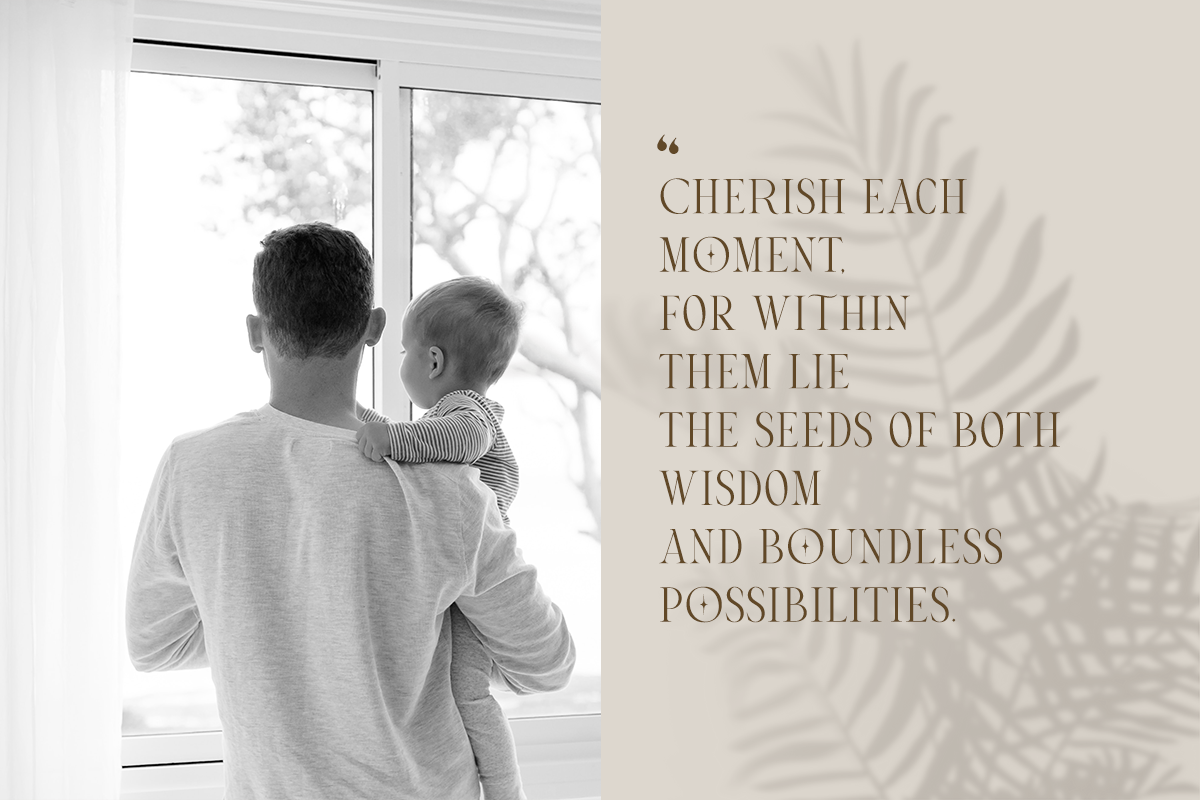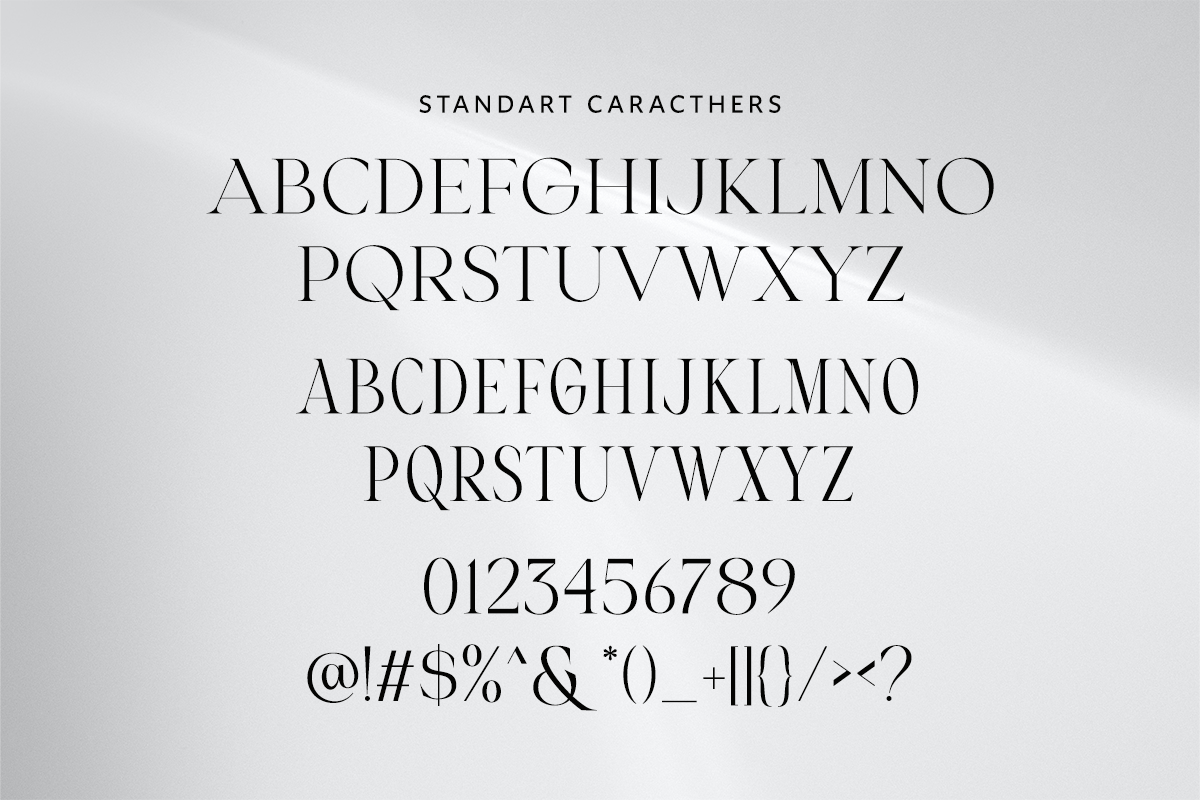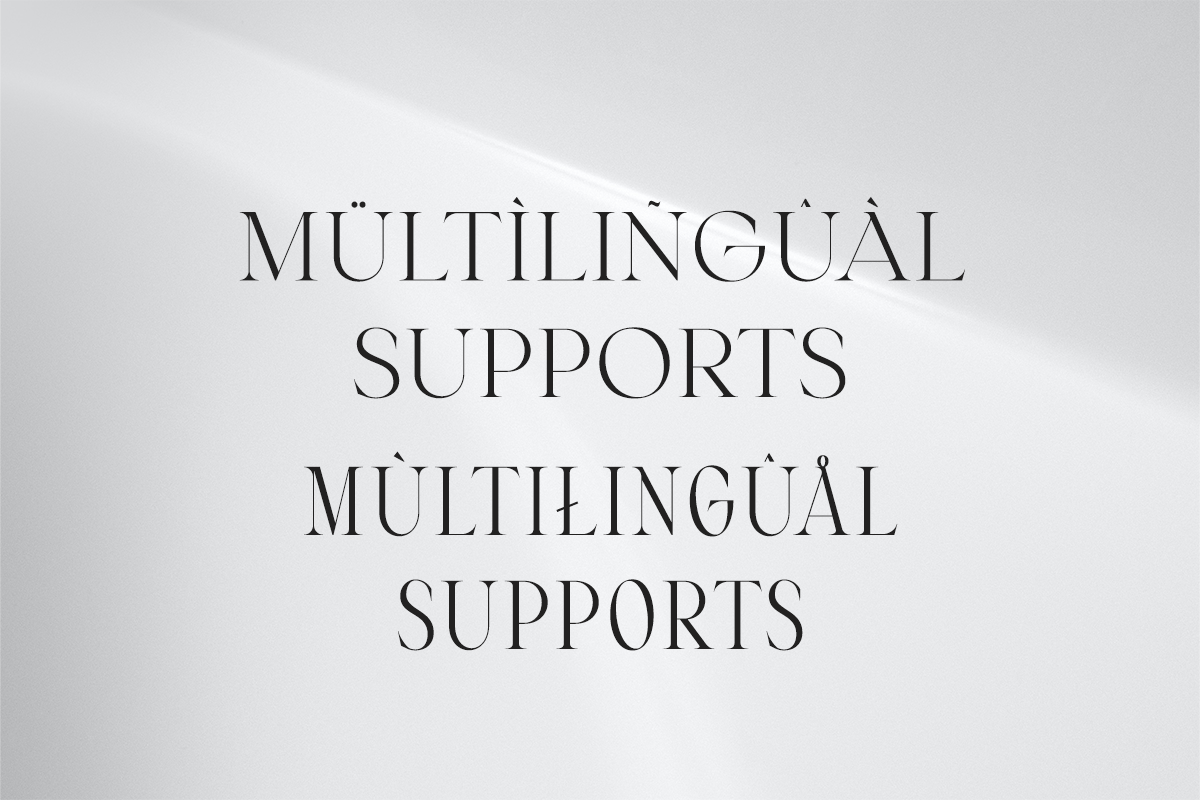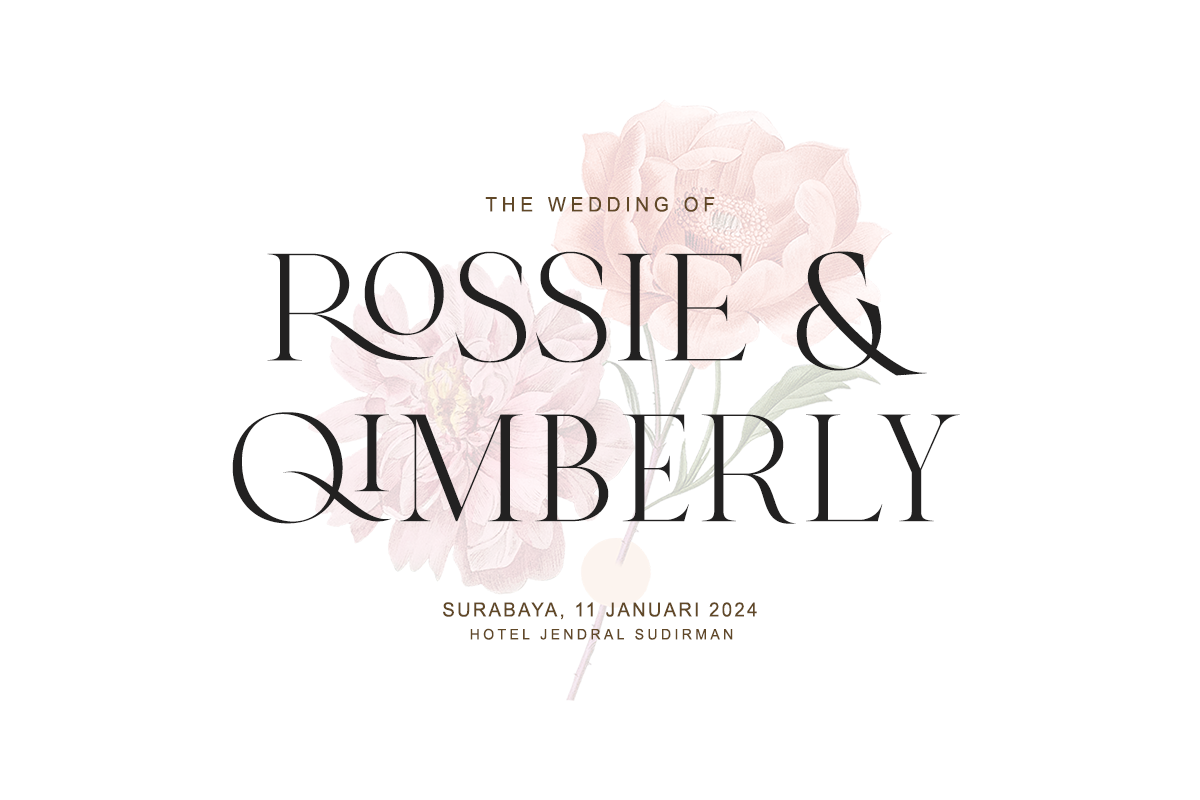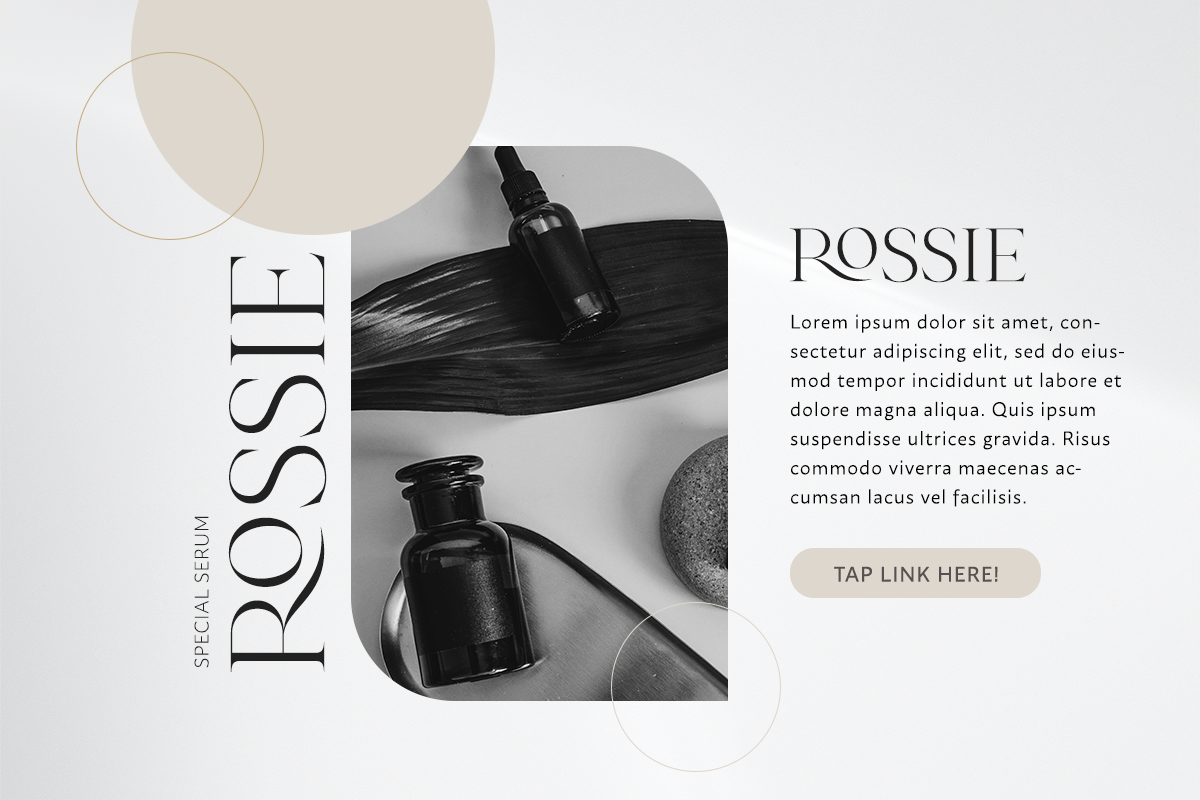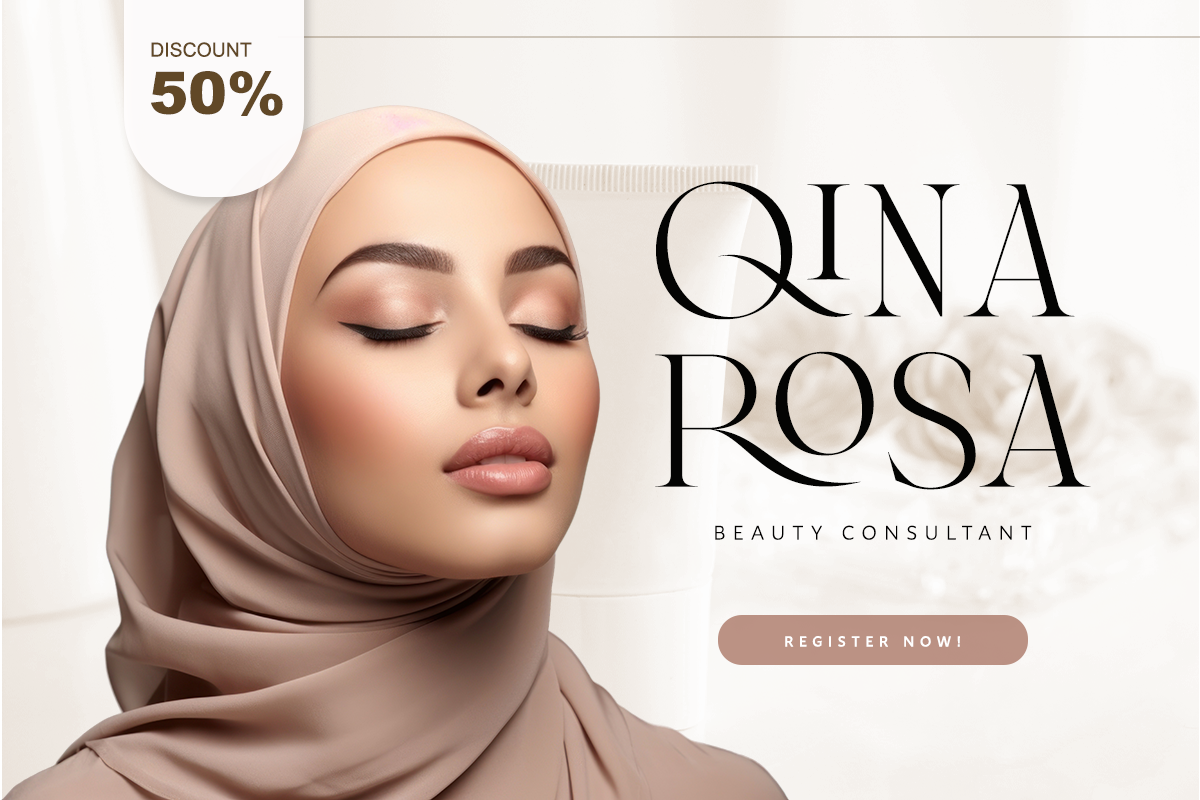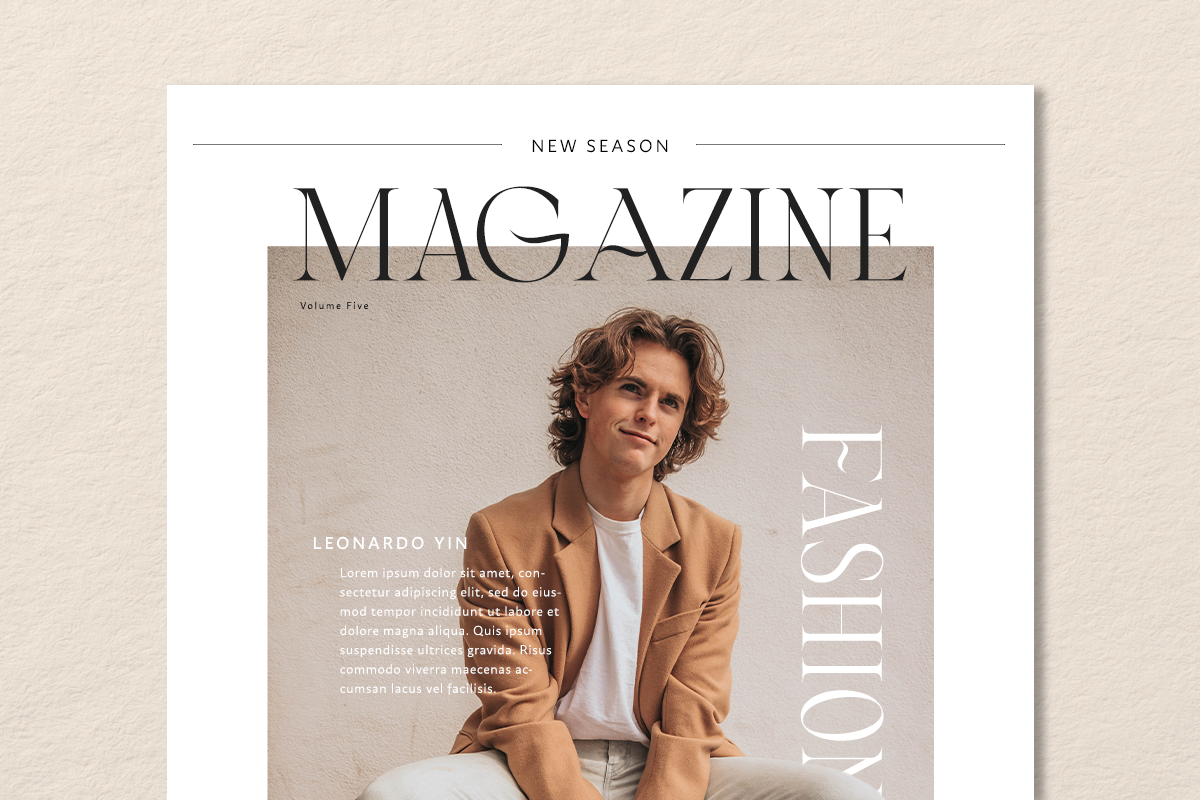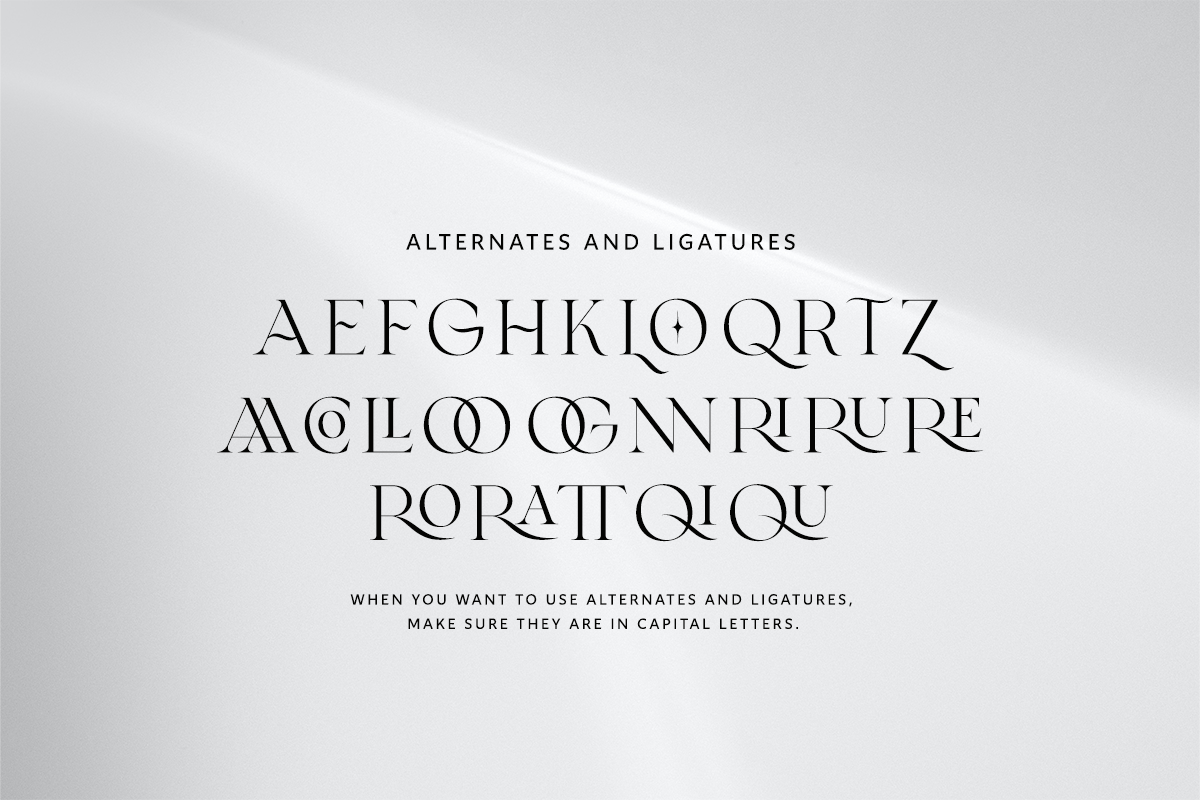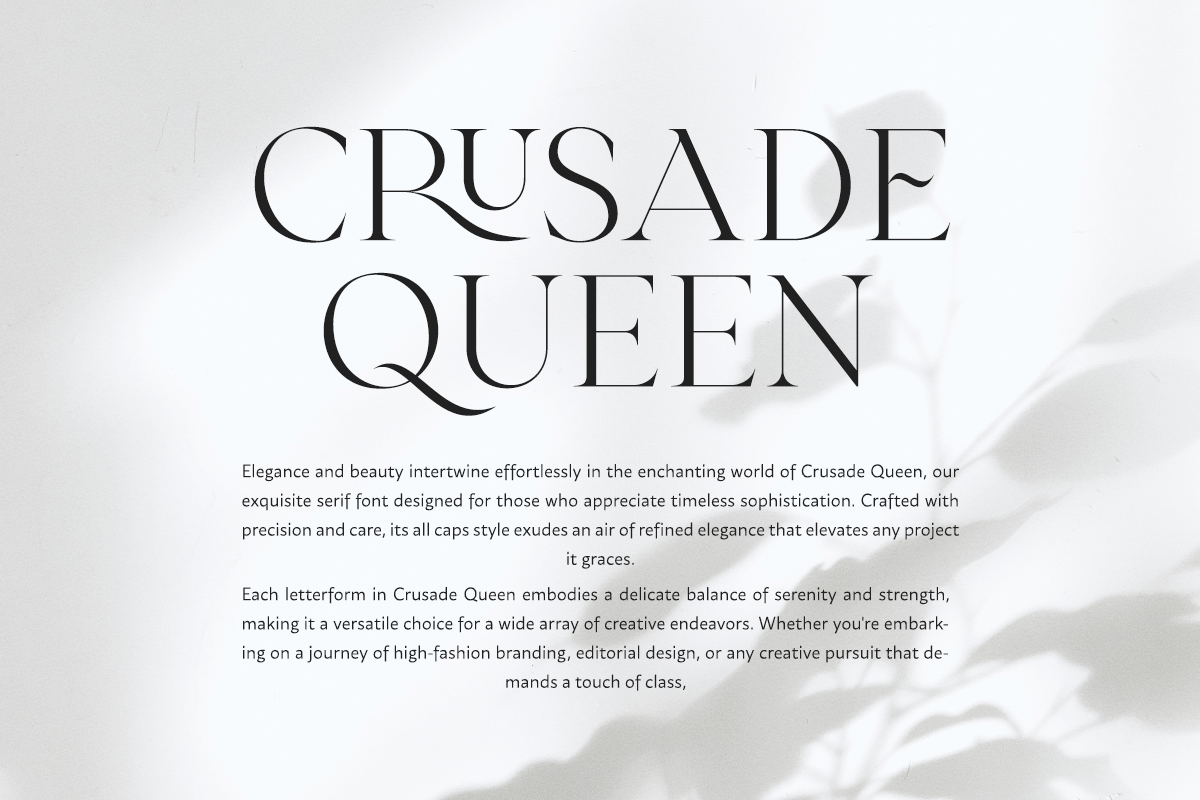
Crusade Queen
Crusade Queen - All Caps Serif Font
Elegant. Beautiful. Symbolizing Grace and Beauty.
"Crusade Queen" is a serif font that exudes beauty and grace in every character. With its "All Caps" concept, this font provides a bold and elegant appearance in every design. Crafted meticulously to meet the demands of the fashion, beauty, magazine, and more, "Crusade Queen" is the perfect choice for projects that require an elegant touch.
Beautiful and graceful serif style. Suitable for both personal and commercial use. Complete character set including uppercase, lowercase, numbers, and punctuation. Perfection in every detail, symbolizing grace and beauty. Sample Uses:
Luxurious and elegant logo design. Eye-catching magazine covers. Promotional materials for the fashion and beauty industries. Graphic design projects that incorporate elements of elegance. "Crusade Queen" is an unequivocal choice for projects that demand a touch of class and luxury. With this font, you can infuse grace and beauty into every design.